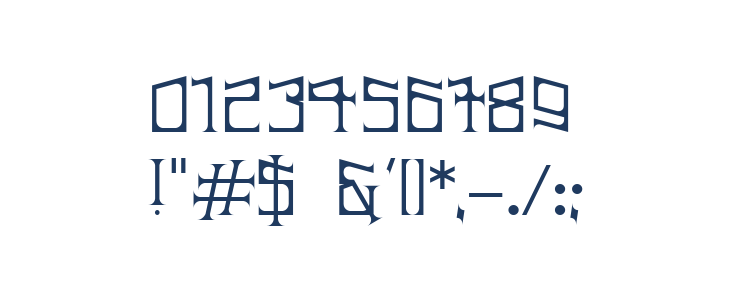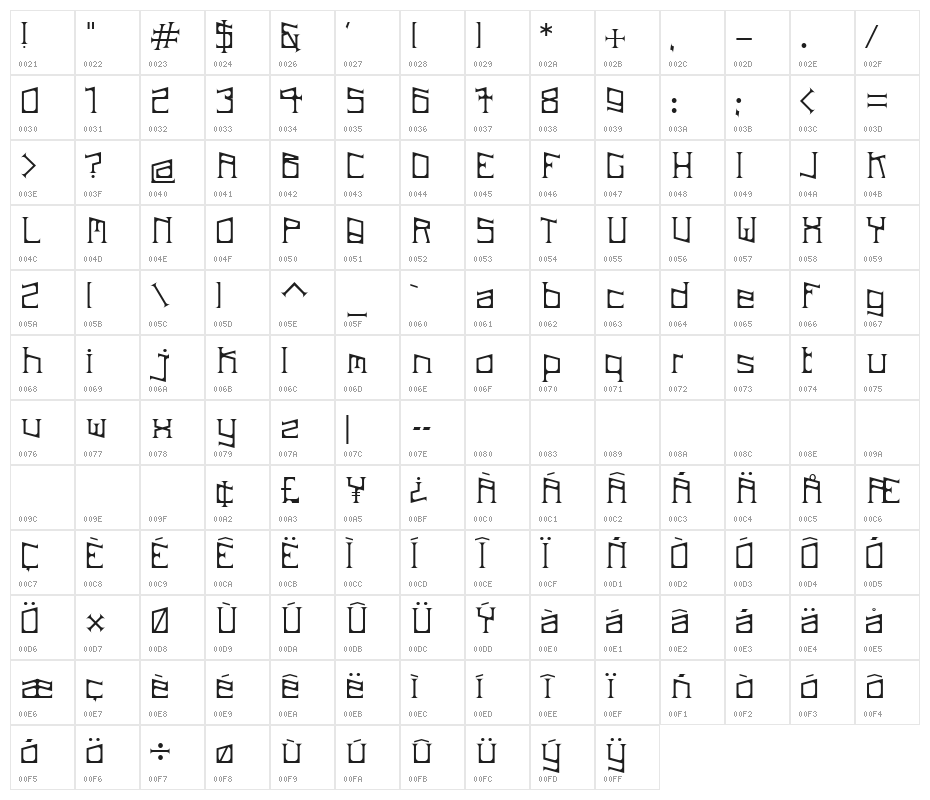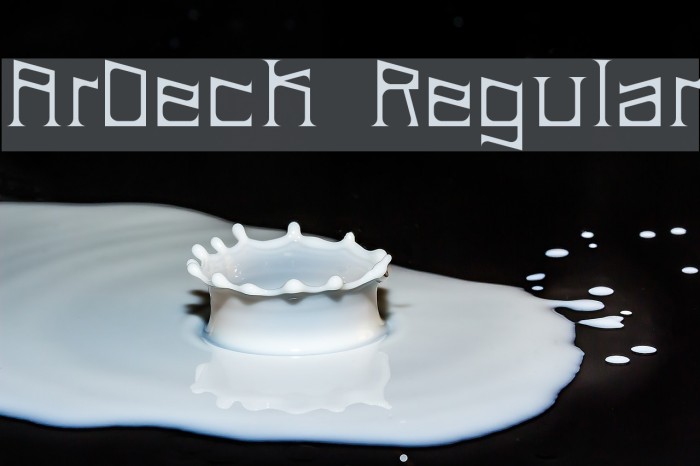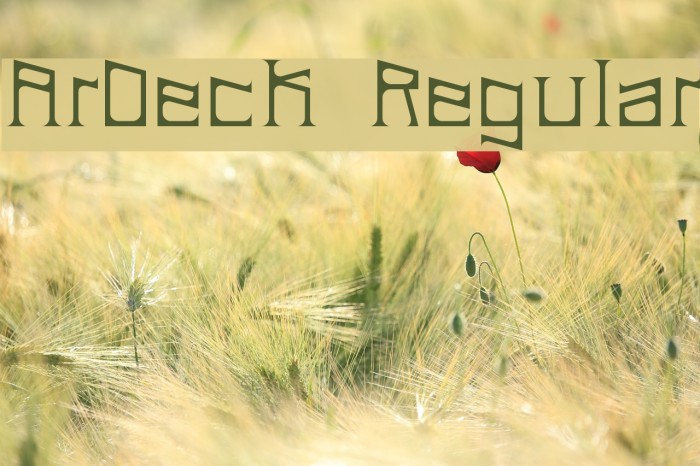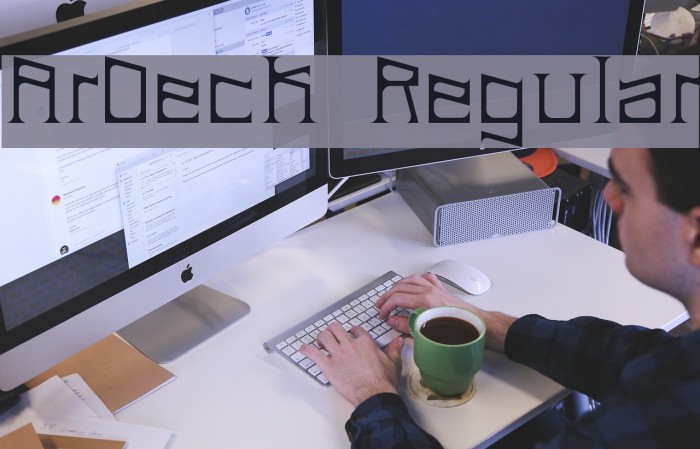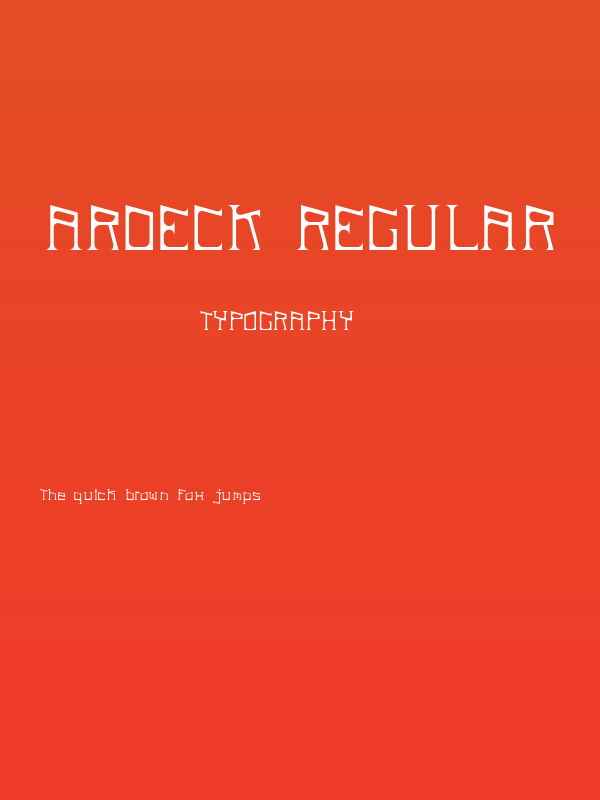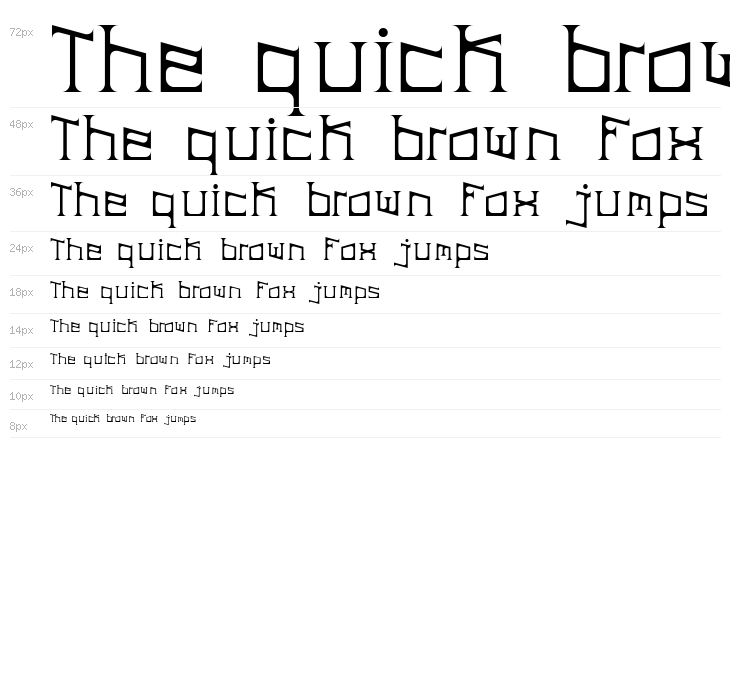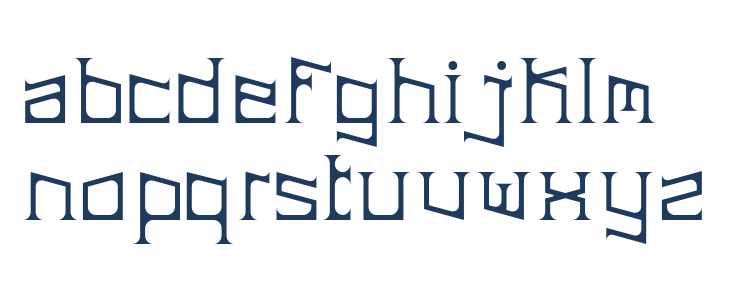
ArDeck Regular Font
ArDeck Regular Description
This font features a unique and bold style with sharp, angular edges and a modern aesthetic. The characters are designed with a distinctive geometric flair, giving them a futuristic and edgy appearance. The uppercase letters are particularly striking, with their tall and narrow forms, while the lowercase letters maintain a consistent style that complements the overall design. The numbers and special characters are equally bold, ensuring a cohesive look across all elements. This font's strong visual impact makes it ideal for projects that require a standout typeface.
| Proposed Projects | Ideal for branding, posters, album covers, and any project needing a bold, modern typeface. |